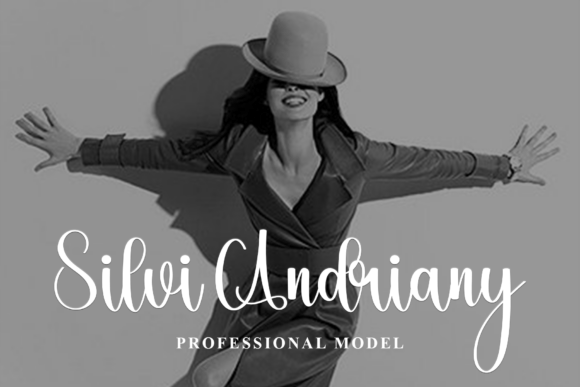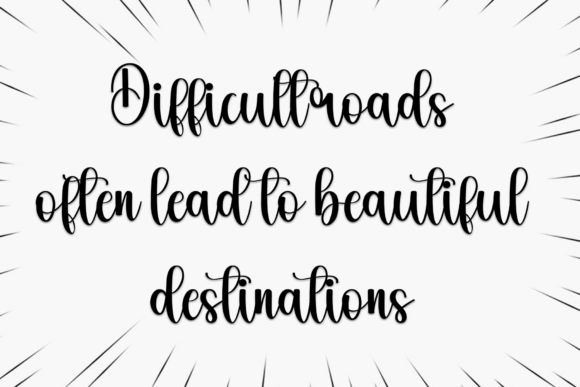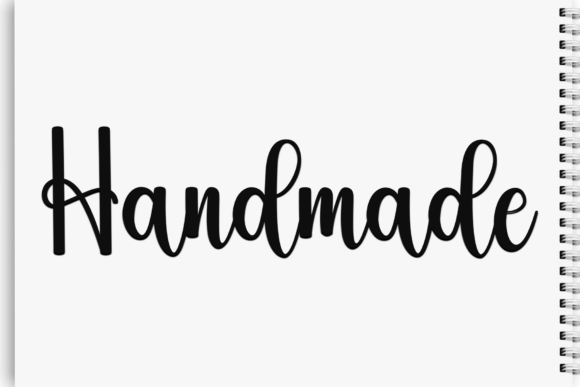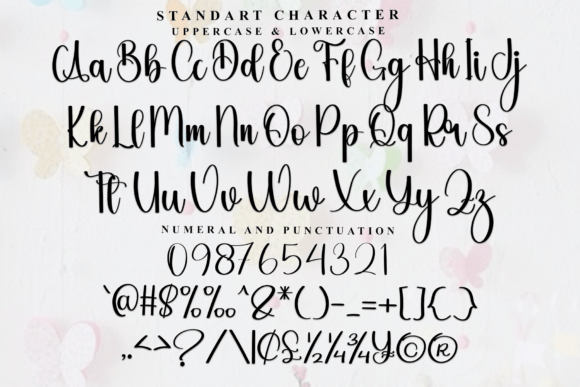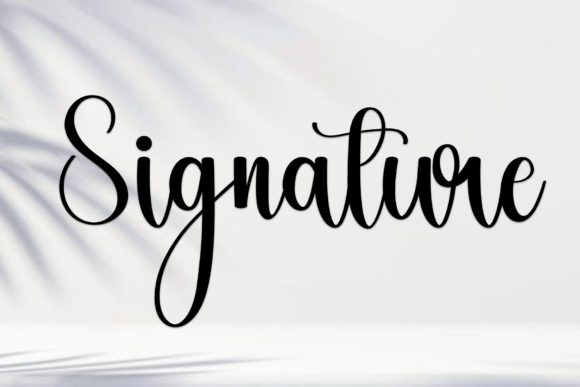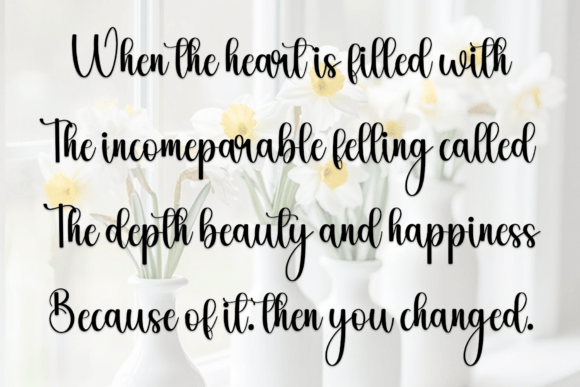
The Warmth of Daylight Font: A Designer’s New Best Friend
I’ll never forget the time I was working on a project for a client’s birthday party invitation. I had the design concept all sorted out, but I was stuck on finding the perfect font. I wanted something that would convey a sense of warmth and friendliness, but still be playful and fun. That’s when I stumbled upon the Daylight font, and it was love at first sight! 💕
A Personal Review of Daylight Font
As a designer, I’m always on the lookout for fonts that can help me bring my designs to life. Here’s my honest review of the Daylight font:
- ✨ The casual and creative vibe that exudes warmth and friendliness
- ✅ The round, playful strokes that create a relaxed and approachable feel
- 💖 The charming, hand-drawn aesthetic that adds a fun and unique touch to any design
- 🎉 The font’s versatility, making it perfect for personal projects, invitations, and social media graphics
While I absolutely adore the Daylight font, there are a few minor quirks to be aware of:
- 🤔 Some users might find the font a bit too casual for formal projects
- ⚠️ The font may not be suitable for very small text sizes, as it can become a bit blurry
The Story Behind Daylight Font
The Daylight font was designed by a talented type designer who wanted to create a font that would bring warmth and friendliness to any design. Inspired by the beauty of hand-drawn typography, the designer crafted a font that would be perfect for personal projects, invitations, and social media graphics.
| Font Name | Daylight Font |
| Author | K_IN Studio |
Q: What is the Daylight font?
A: The Daylight font is a casual and creative font that exudes warmth and friendliness.
Q: Does the Daylight font come with OpenType features?
A: Yes, the Daylight font comes with standard PUA Encoded glyphs, which are designed to work seamlessly with various application engines.